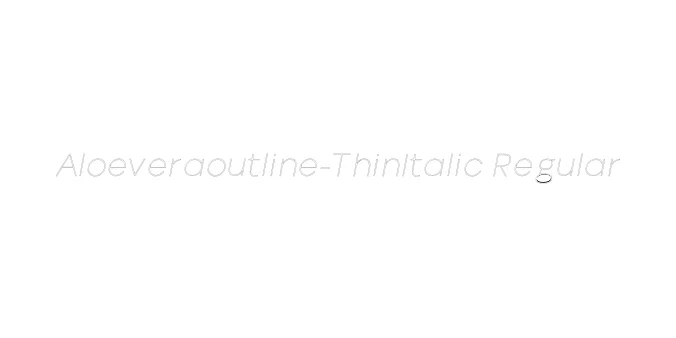
Aloeveraoutline-ThinItalic Regular
Designed by Fikry Alif
| Category | Display Outline |
| Designer | Fikry Alif |
Aloeveraoutline-ThinItalic Regular is a sophisticated display typeface that embodies elegance and contemporary minimalism. Featuring a delicate outline structure and a graceful slant, this font is designed to provide a lightweight yet impactful presence in high-end design projects. Its airy composition allows for a clean, breathable aesthetic that is perfect for modern branding and luxury visual identities.
As part of the broader Aloevera family, the ThinItalic Regular variant excels in large-scale applications such as headlines, posters, and editorial headers. The precise execution of its slender lines makes it a favorite among designers looking to convey a sense of exclusivity and refinement without overwhelming the viewer. It is particularly effective when used in monochromatic palettes or layered over high-quality photography.
Aloeveraoutline-ThinItalic Regular Best Uses
Sophisticated magazine headlines and layout titles.
Minimalist logos for boutique brands and luxury products.
Creating high-end aesthetic quotes and stories for Instagram.
Wedding invitations and upscale event stationery.